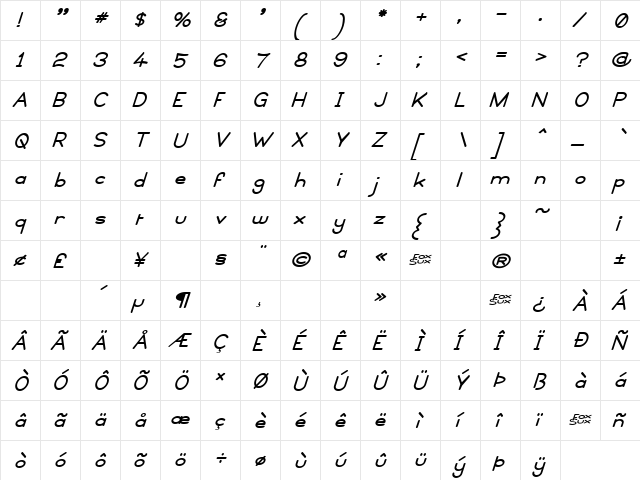
Copyright Violations Nudged Regular
Design Context for Copyright Violations Nudged Typeface
Copyright Violations Nudged is a composed and adaptable typeface that performs quietly and consistently across a wide range of design contexts.